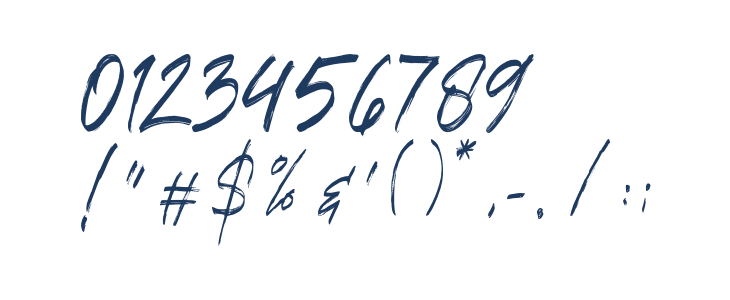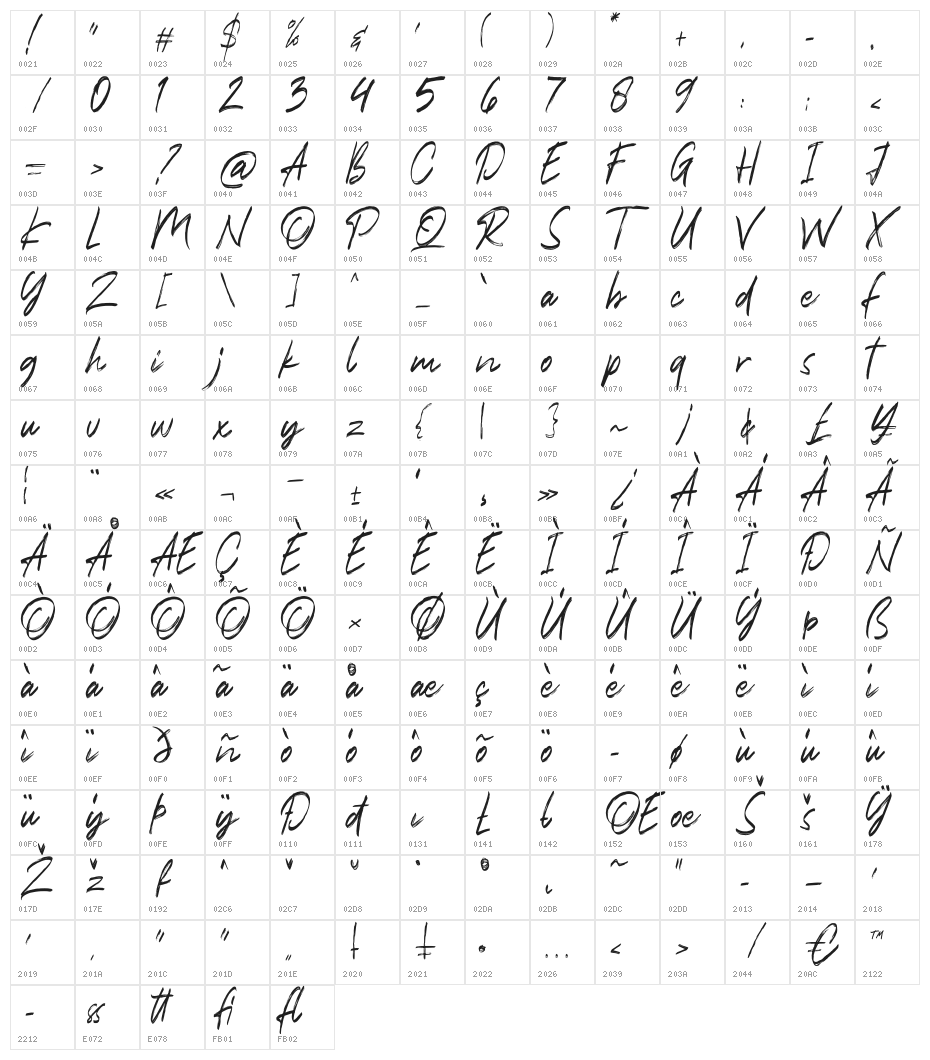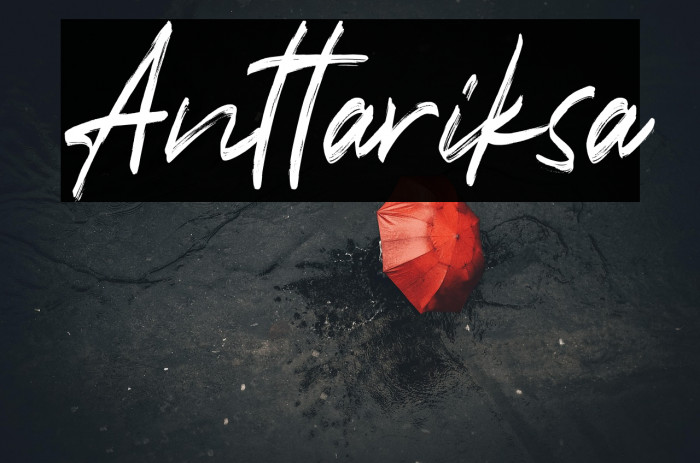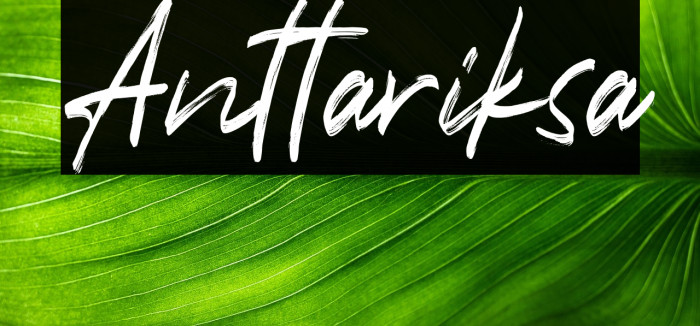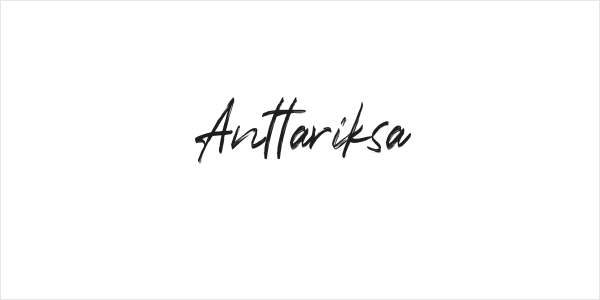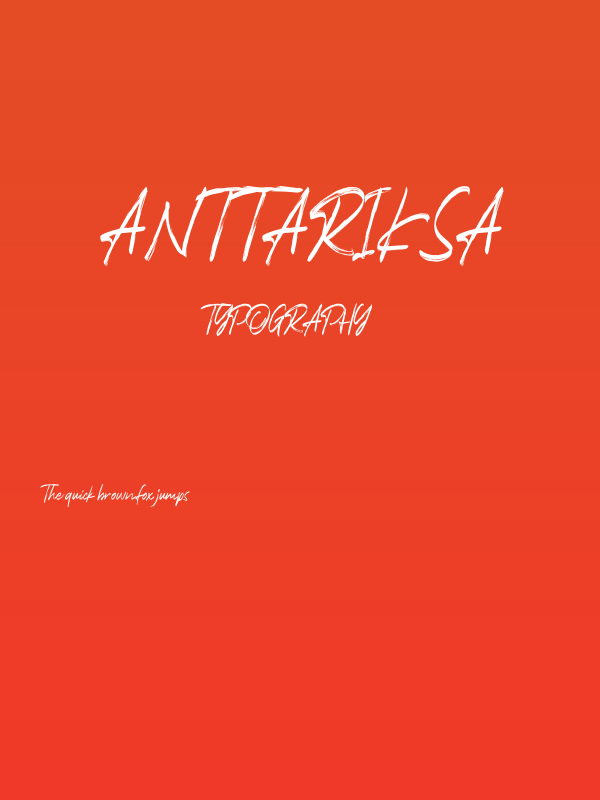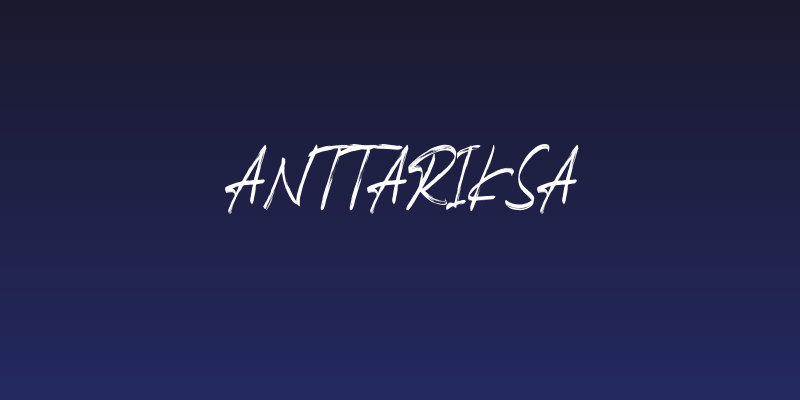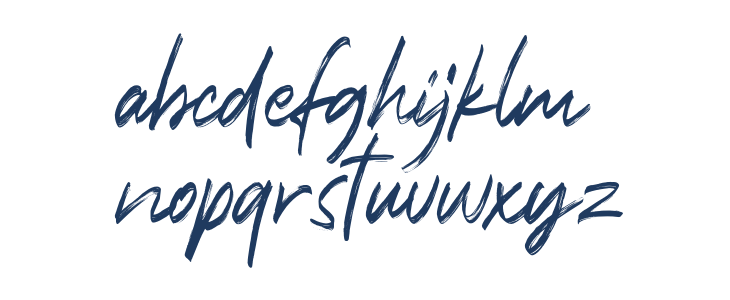
Anttariksa Font
Anttariksa Description
This font exhibits a dynamic and expressive handwritten style, characterized by its fluid and energetic strokes. The letters are crafted with a sense of motion, giving them a lively and spontaneous appearance. The uppercase and lowercase letters maintain a consistent style, with varying stroke thickness that adds to the font's artistic flair. The numerals and special characters are equally expressive, maintaining the handwritten aesthetic throughout. This font is ideal for projects that require a personal touch or a creative, informal vibe.
Use CaseLogos, Headlines, Artistic projects
Proposed ProjectsIdeal for creative projects such as greeting cards, invitations, personal branding, and artistic posters.